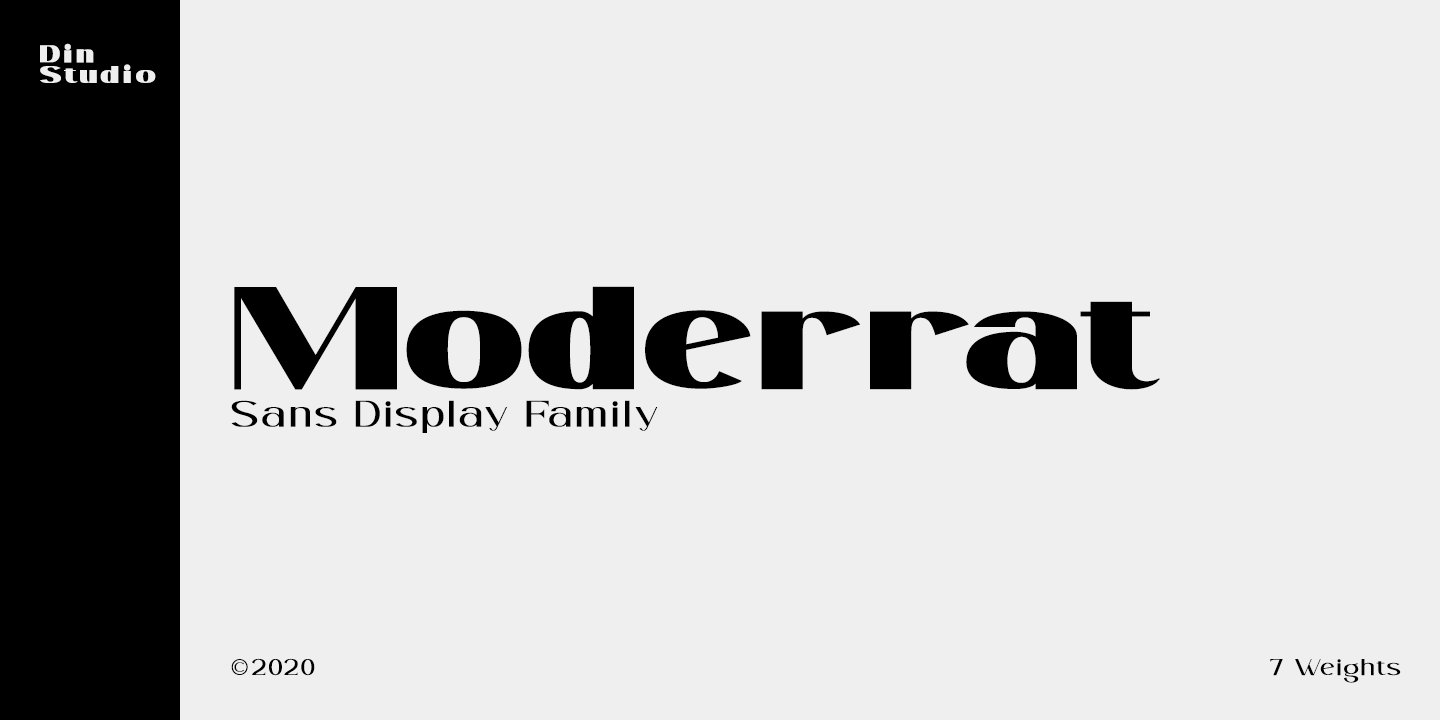
The Moderrat Font Free Download is a highly versatile and distinctly modern sans-serif typeface, making it an excellent choice for a wide array of design projects that demand clarity, contemporary aesthetics, and a clean, professional appeal. This adaptable font is perfectly suited for corporate branding, web and UI design, mobile applications, editorial layouts, packaging, and digital advertising. Imagine it providing the crisp, efficient text for a cutting-edge tech startup's website, ensuring effortless readability in a complex data visualization, or giving a sleek, minimalist aesthetic to a new gadget's marketing campaign. Its straightforward forms and exceptional legibility ensure your message is communicated effectively and efficiently across all platforms.
What makes Moderrat Font truly exciting is its ability to blend unobtrusive design with a distinct, modern character. It's not just another workhorse sans-serif; it possesses a subtle refinement and a meticulously crafted structure that allows it to integrate seamlessly into diverse design contexts while maintaining a professional and contemporary presence. Its robust construction ensures it performs beautifully in both large display sizes and small body text, making it an incredibly reliable choice for any project. Designers will appreciate its understated sophistication and how it provides a solid yet stylish foundation for any visual communication, allowing the content to truly shine.
The Moderrat Font family typically offers an expansive range of weights and styles, making it exceptionally flexible for building sophisticated typographical hierarchies and nuanced visual expressions. You can often find a comprehensive spectrum of variations, including Thin, Light, Regular, Medium, SemiBold, Bold, ExtraBold, and Black, providing extensive control over visual emphasis and typographic texture. Most comprehensive versions also include corresponding Italic styles, further enhancing its utility for varied design needs, from subtle emphasis to dynamic headlines. These extensive options ensure that the Moderrat Font Free Download is an invaluable asset for designers seeking a dependable, high-quality, and aesthetically pleasing typeface for virtually any design challenge.